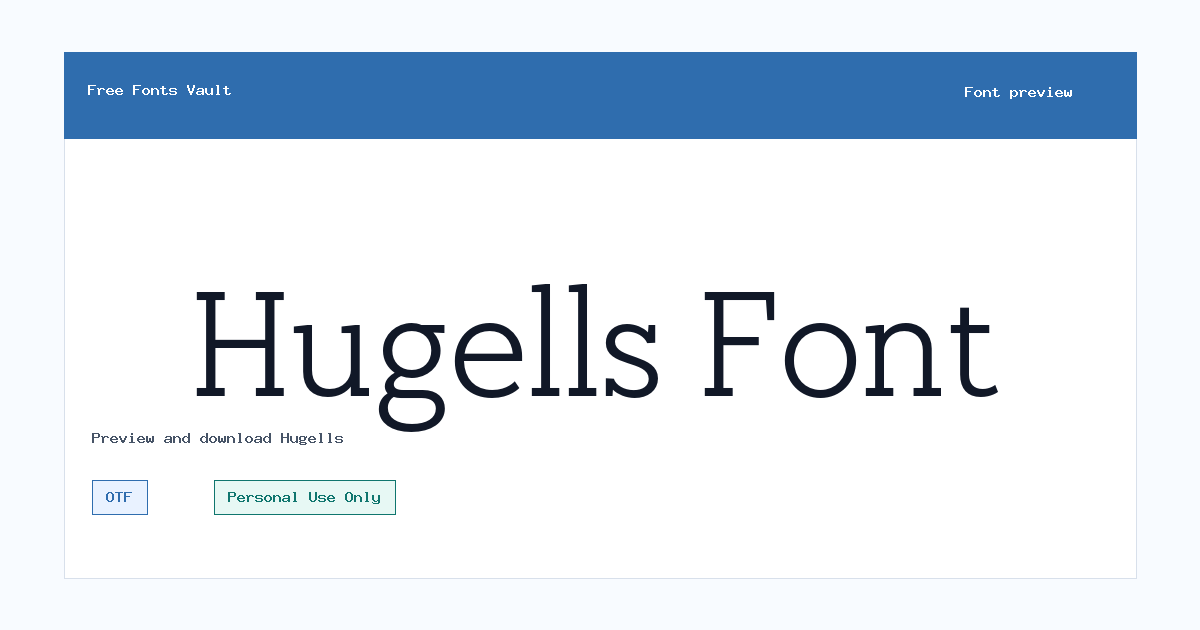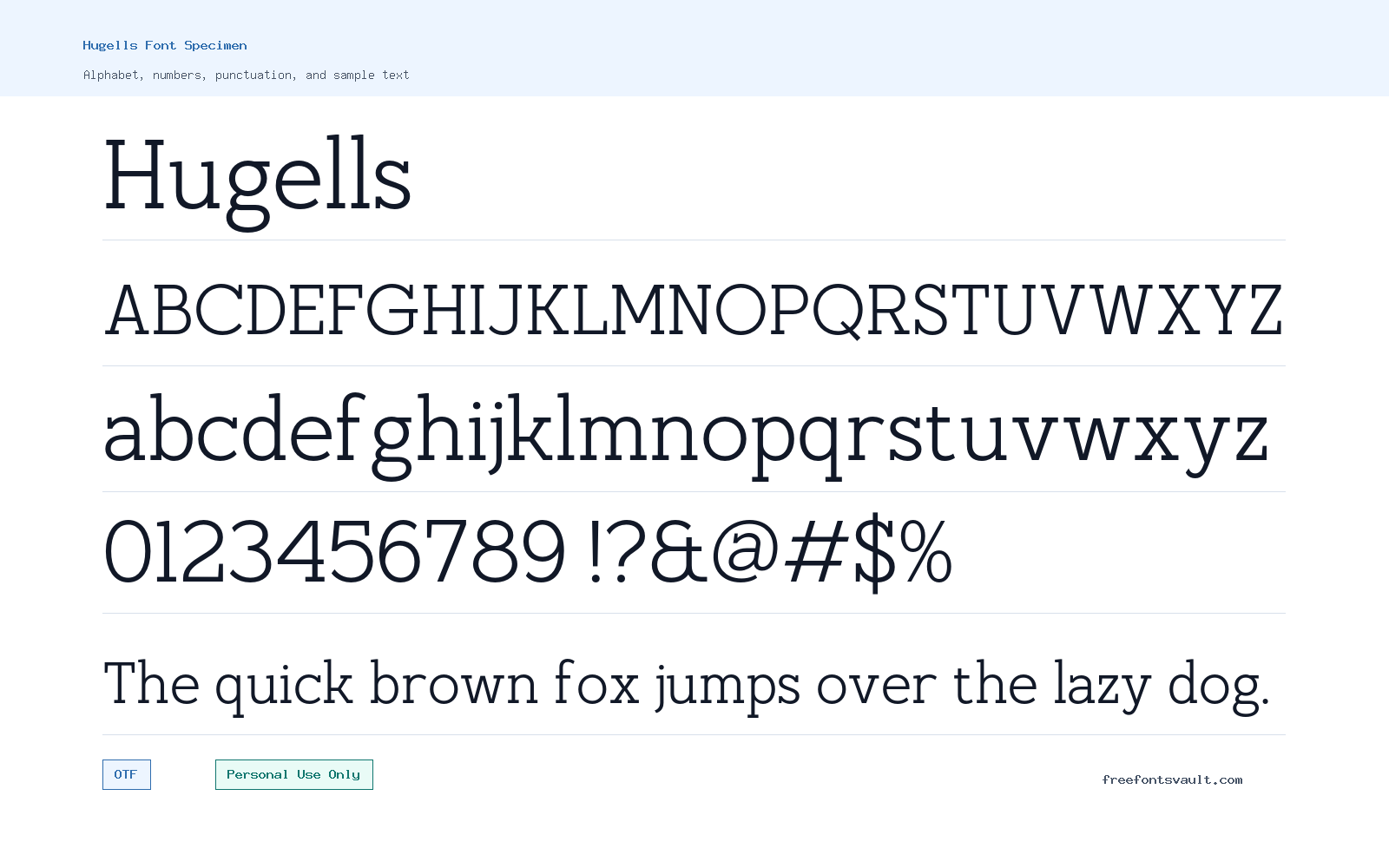
Hugells
Hugells font preview showing the family name
Hugells Font
Hugells font specimen showing alphabet, numbers, and sample text
• Designer Habib Alfatul Akbar
• Foundry Arterfak Project
Hugells font.
Hugells is a slab serif font family with a regular OTF style, made for users who want a solid display typeface for previews, personal artwork, and design testing.
About Hugells Font
Hugells has the practical feel people often look for in a slab serif: firm letter shapes, noticeable serifs, and enough weight to stand up in short pieces of text. Since the downloadable file is a regular 400-weight OTF, it is best approached as a single-style display choice rather than a large text family with many weights. Use the preview box to check how its spacing, curves, and heavier serif details behave in your own words before using it in a layout.
This font is most useful when the wording is short and the design needs a clear headline voice. Try it for poster titles, social graphics, personal logo drafts, packaging mockups, labels, web hero text, and mood-board typography. For longer reading sections, pair it with a simpler sans serif or a restrained serif body font so Hugells can do the attention-grabbing work without making the page feel too heavy. If you are testing it for a logo, type the exact brand name in uppercase, lowercase, and title case, then check the small gaps between letters. Display fonts can look strong in one word and crowded in another, so a quick spacing test is worth doing.
• Slab serif style suited to headings, titles, and short display text.
• Single-style family, useful for focused mockups rather than complex typography systems.
• Works best when paired with a quieter body font to keep longer layouts readable.
• Poster headings and event title concepts
• Personal logo sketches and wordmark tests
• Social media quote cards or announcement graphics
• Website hero headings and landing-page design previews
• Mood boards, typography studies, and classroom projects
Hugells is credited to Habib Alfatul Akbar and Arterfak Project.
Use Hugells for short text first: titles, names, labels, and bold graphic lines. In a web mockup, try it at larger sizes for hero text and pair it with a clean sans serif for paragraphs, menus, and captions. For logo work, test the exact word, adjust letter spacing if your design app allows it, and avoid assuming the personal-use file is cleared for a real brand launch.
What kind of font is Hugells?
Hugells is identified as a slab serif font. That makes it a good candidate for display typography such as headings, posters, and short brand-style text.
What should I pair Hugells with?
Pair it with a simple sans serif or a calm serif for body text. Let Hugells handle the title or main wordmark, then use the supporting font for longer reading.
Is Hugells good for long paragraphs?
It is better for short display text. For long paragraphs, use a more neutral reading font and keep Hugells for headings or accents.